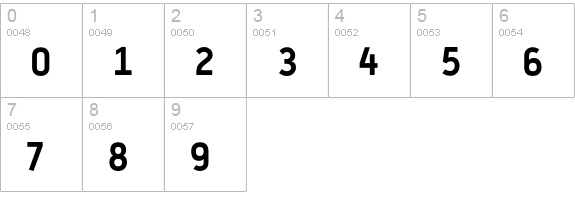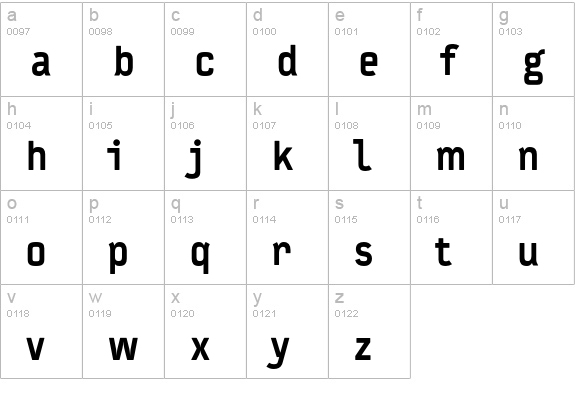
Typestar-Black is a maximum-weight, dramatic variant in the Typestar typeface family \xE2\x80\x94 well suited to maximum-impact headlines, posters, and packaging.